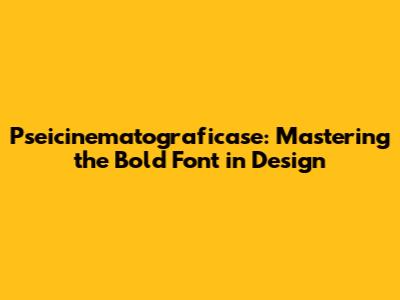
Pseicinematograficase: Mastering The Bold Font In Design
Let's dive into the world of pseicinematograficase and how you can master the art of using bold fonts in your designs. Guys, have you ever wondered how certain designs just pop while others fade into the background? Often, the secret lies in the strategic use of bold fonts. In this article, we're breaking down everything you need to know about pseicinematograficase and bold fonts to create eye-catching and effective designs. Whether you're a seasoned designer or just starting, these tips and tricks will help you level up your game.
Understanding the Basics of Bold Fonts
Before we get into the nitty-gritty of pseicinematograficase, let's cover the fundamentals of bold fonts. Bold fonts are essentially heavier versions of regular fonts, designed to grab attention and emphasize specific words or phrases. The increased weight makes them stand out, making them perfect for headlines, subheadings, and call-to-actions. But, like any powerful tool, they need to be used correctly.
Why Use Bold Fonts?
Using bold fonts strategically can significantly enhance the visual hierarchy of your design. They help guide the reader's eye, highlighting the most important information first. This is crucial for ensuring that your message is communicated effectively and efficiently. Imagine a webpage without any bold text – it would be a daunting wall of words! Bold fonts break up the monotony, making the content more digestible and engaging. Moreover, bold fonts are essential for creating a strong brand identity. Consistent use of bold fonts in your marketing materials can help reinforce your brand's personality and make it more recognizable.
Common Mistakes to Avoid
One of the most common mistakes is overusing bold fonts. If everything is bold, then nothing stands out. It's like shouting all the time – eventually, people tune you out. Use bold fonts sparingly, focusing on key elements that you want to emphasize. Another mistake is choosing the wrong font. Not all fonts look good in bold. Some fonts become too thick and lose their clarity, while others don't have a distinct enough bold version. Always test your fonts to see how they look in bold before incorporating them into your design. Also, pay attention to the contrast between the bold text and the background. If the contrast is too low, the bold text won't stand out enough. If it's too high, it can be jarring and difficult to read. Finding the right balance is key.
Diving into Pseicinematograficase
Now that we've covered the basics, let's talk about pseicinematograficase. While it might sound like a complex term, it essentially refers to the art of using cinematic techniques in your designs to create a visual narrative. This involves carefully considering elements like typography, color, and layout to evoke emotions and tell a story. When it comes to typography, bold fonts play a crucial role in setting the tone and emphasizing key messages within your cinematic design.
The Role of Bold Fonts in Pseicinematograficase
In pseicinematograficase, bold fonts act as visual cues that guide the audience through your design. They help create a sense of drama and emphasis, much like how a director uses close-ups and dramatic lighting in a film. By strategically placing bold fonts, you can control the viewer's focus and ensure that they grasp the most important aspects of your narrative. Think of it as adding a spotlight to certain words or phrases, making them impossible to miss. Moreover, bold fonts can also be used to create contrast and tension within your design. By juxtaposing bold and regular fonts, you can highlight conflicting ideas or emotions, adding depth and complexity to your visual story.
Practical Tips for Using Bold Fonts in Pseicinematograficase
To effectively use bold fonts in pseicinematograficase, consider the following tips. First, always start with a clear understanding of your message. What story are you trying to tell? What emotions do you want to evoke? Once you have a clear idea of your narrative, you can begin to identify the key elements that need to be emphasized. These are the perfect candidates for bold fonts. Next, experiment with different font weights and sizes. Not all bold fonts are created equal. Some are bolder than others, and the right choice will depend on the specific context of your design. Play around with different options until you find the perfect balance. Also, pay attention to the spacing and alignment of your bold text. Proper spacing can make your text more readable and visually appealing, while alignment can help create a sense of order and structure. Finally, don't be afraid to break the rules. While these tips are a good starting point, the best way to master the art of pseicinematograficase is to experiment and find what works best for you.
Advanced Techniques with Bold Fonts
Ready to take your bold font game to the next level? Let's explore some advanced techniques that can help you create even more impactful designs. These techniques involve combining bold fonts with other design elements to create a cohesive and visually stunning effect.
Pairing Bold Fonts with Other Design Elements
One of the most effective ways to enhance the impact of bold fonts is to pair them with other design elements, such as images, colors, and shapes. For example, you can use a bold font to create a striking headline that complements a powerful image. The combination of the bold text and the image will immediately grab the viewer's attention and convey your message in a compelling way. Similarly, you can use color to highlight your bold text and make it even more prominent. A bright, contrasting color will make your bold text pop, while a more subtle color will create a more sophisticated and understated effect. Additionally, you can use shapes and lines to frame your bold text and draw the viewer's eye to it. A simple rectangle or circle can be surprisingly effective in highlighting your bold text and making it stand out.
Creating Visual Hierarchy with Bold Fonts
As we've already discussed, bold fonts are essential for creating visual hierarchy. But you can take this concept even further by using different weights and sizes of bold fonts to create a more nuanced and sophisticated hierarchy. For example, you can use a heavier bold font for your main headline and a lighter bold font for your subheadings. This will help guide the reader's eye and ensure that they understand the structure of your content. You can also use different sizes of bold fonts to emphasize different levels of importance. A larger bold font will indicate a more important element, while a smaller bold font will indicate a less important element. By carefully considering the weights and sizes of your bold fonts, you can create a clear and effective visual hierarchy that enhances the overall readability and impact of your design.
Conclusion: Mastering the Art of Pseicinematograficase with Bold Fonts
In conclusion, pseicinematograficase is a powerful design technique that can help you create visually stunning and impactful designs. Bold fonts play a crucial role in pseicinematograficase, allowing you to emphasize key messages, create visual hierarchy, and guide the viewer's eye. By understanding the basics of bold fonts and experimenting with advanced techniques, you can master the art of pseicinematograficase and create designs that truly stand out. So go ahead, guys, unleash your creativity and start using bold fonts to tell your visual story! Just remember to use them strategically and thoughtfully, and you'll be well on your way to creating designs that are both beautiful and effective.